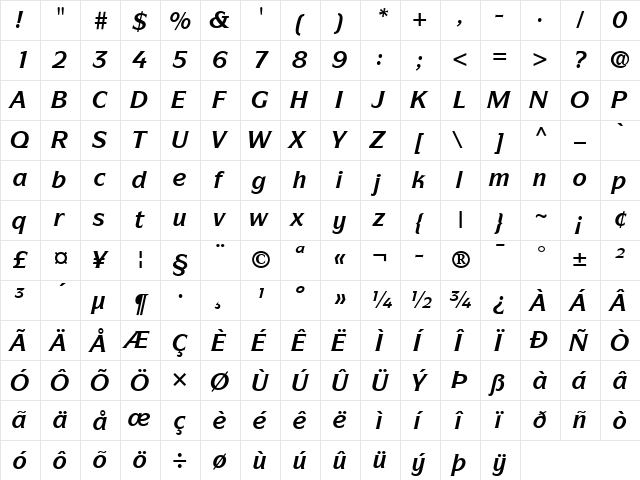
Symbol LT Book Bold Italic Font Preview
Symbol LT Book Bold Italic
Symbol LT Book Bold Italic Font Details
Design Context for Symbol LT Book Typeface
Symbol LT Book is a composed and adaptable typeface that performs quietly and consistently across a wide range of design contexts. The slanted form adds forward momentum and visual energy. The heavy weight commands attention and anchors typographic hierarchies.
Pro Tip: Try Symbol LT Book for annotation and caption copy alongside an upright companion — the contrast in angle creates a dynamic but ordered typographic system.